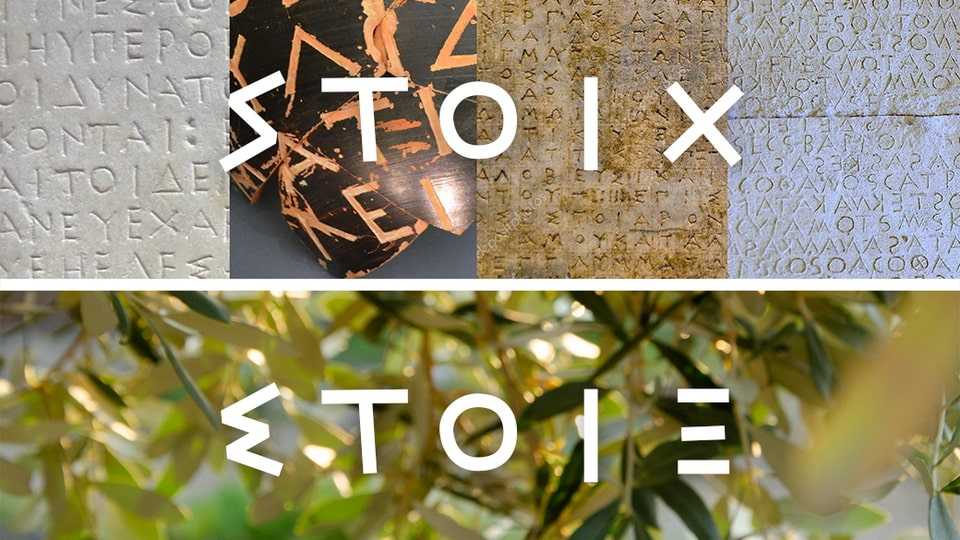
Download Stoix font, a display font family based on epigraphy (stone carved letters) from an Athenian Hellenic-period decree. Stoix font contains a Greek alphabet and a Latin alphabet that’s based on the Greek one.